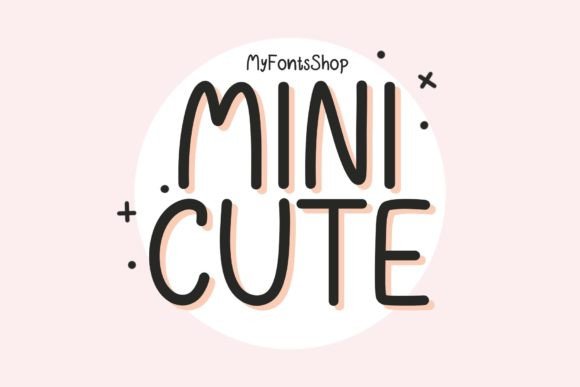
Embark on a captivating journey into the realm of typography with the mesmerizing Minicute Font, a creation of MyFontsShop, a name synonymous with excellence in the world of fonts. Minicute Font is not just a collection of letters and symbols; it's an art form that dances across the digital canvas, captivating hearts and igniting imaginations.
Immerse yourself in the world of Minicute Font, a symphony of strokes and curves that harmoniously blend to form characters exuding warmth and charm. This handwritten font is a testament to the beauty of imperfection, each letter a unique expression of creativity, adding a personal touch to your digital creations.
Let Minicute Font paint a picture of elegance and sophistication in your designs, effortlessly elevating them to new heights. Its delicate lines and playful charm lend a touch of whimsy and enchantment to any project, whether it's a heartfelt letter, an eye-catching poster, or a stunning website.
Unlock the boundless potential of Minicute Font and watch as your words take on a life of their own, captivating your audience with their charm and grace. From heartfelt love letters that tug at the heartstrings to captivating marketing campaigns that leave a lasting impression, Minicute Font is your secret weapon to create designs that resonate with your audience on a deeper level.
Don't settle for ordinary fonts that blend into the background. Embrace the magic of Minicute Font and unleash your creativity, leaving an unforgettable mark on the digital world.